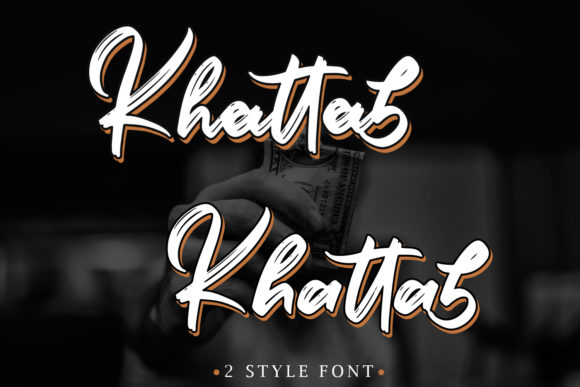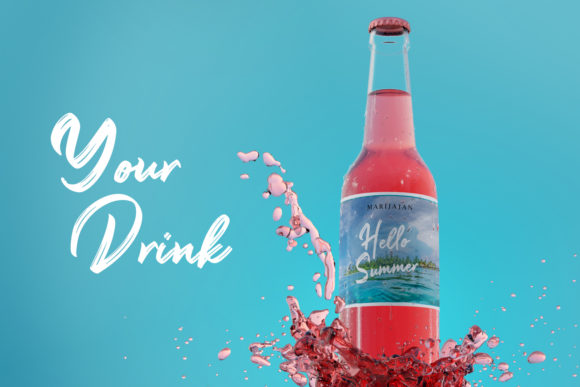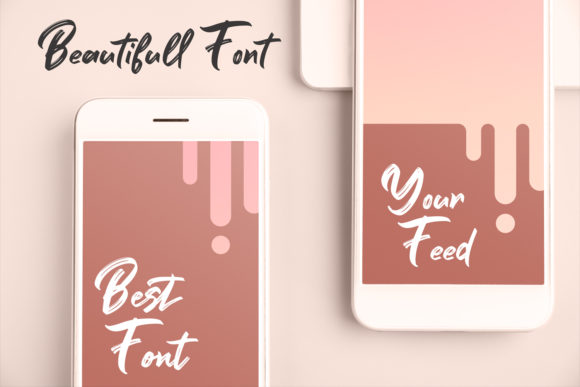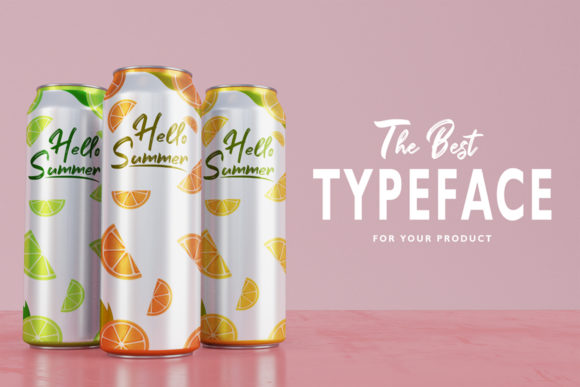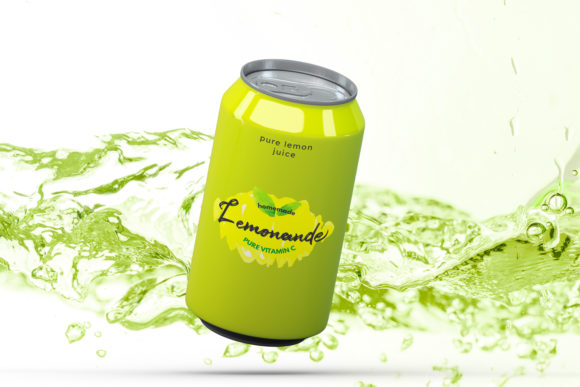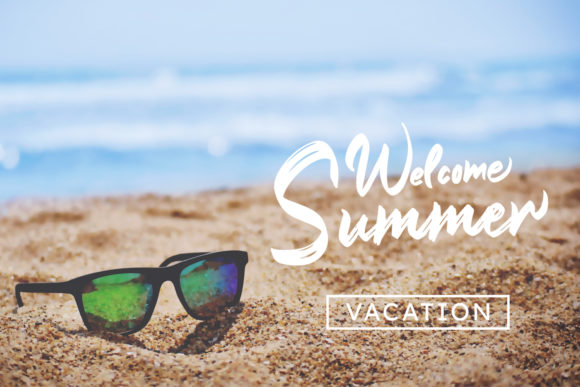
Introduction to Khattab Font
Khattab is a bold and modern script that will turn any design idea into a standout.
Khattab is a bold and modern script that will turn any design idea into a standout!
Key Features of Khattab Font
Why Choose Khattab Font?
Khattab Font offers exceptional quality and versatility, making it a valuable addition to your design toolkit. Whether you’re creating for personal projects or commercial use, Khattab Font delivers professional results.